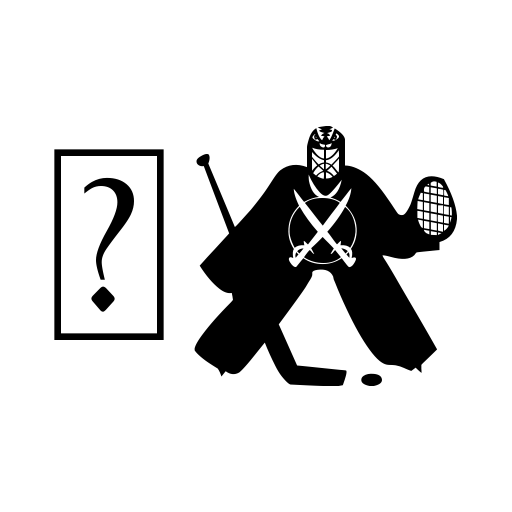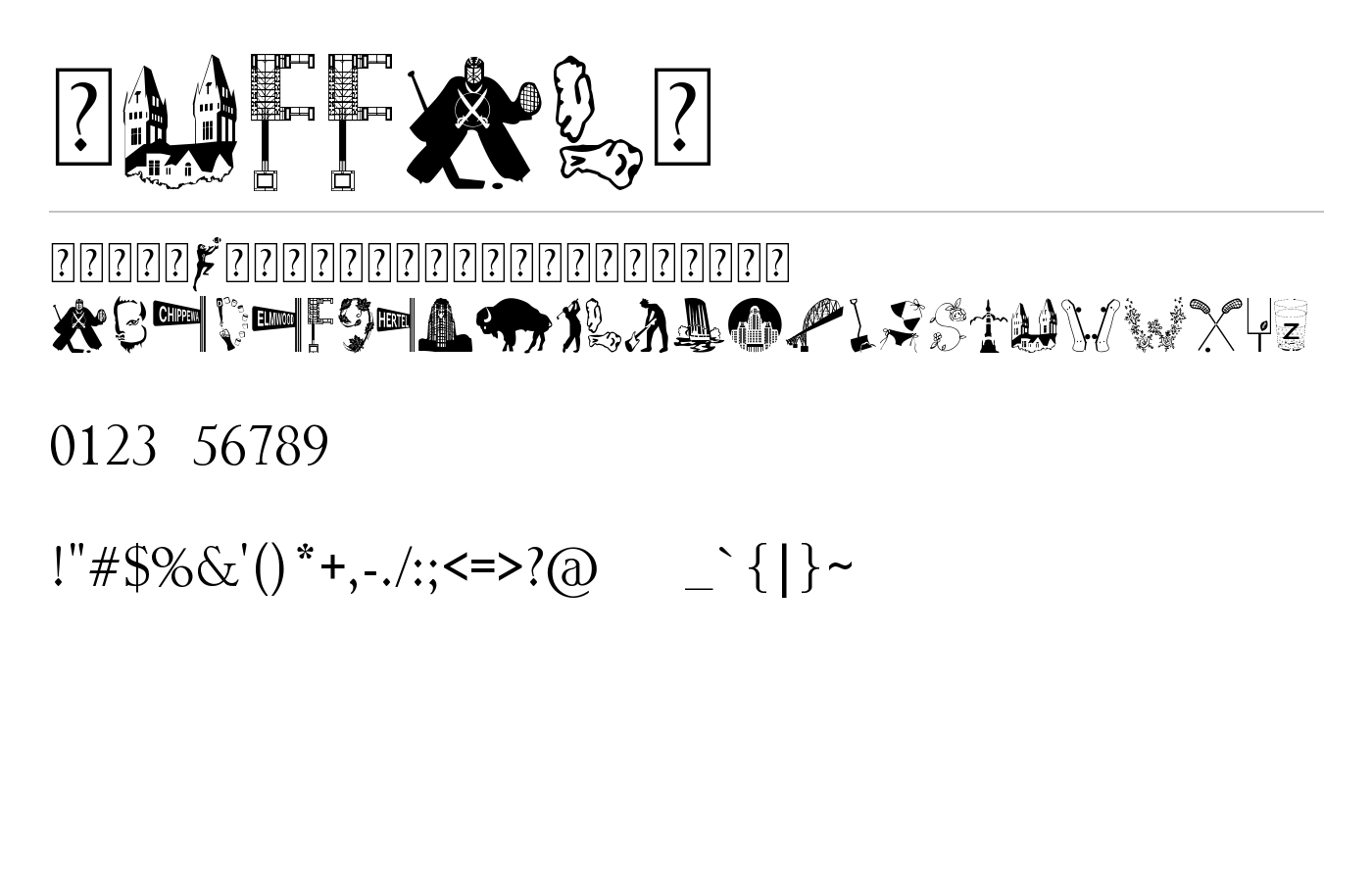
BuffalO Font is a highly decorative display typeface that uses intricate illustrations of local landmarks, people, and nature to form each character, creating a playful and unique visual story. With a serif base and delicate stroke contrast, it combines traditional elegance with whimsical, detailed artwork, making it ideal for eye-catching posters, event branding, or fun editorial projects where personality and local charm are key. This font excels in large sizes where its detailed imagery can be fully appreciated, adding character and creativity to any design.
BuffalO Font
About BuffalO Font